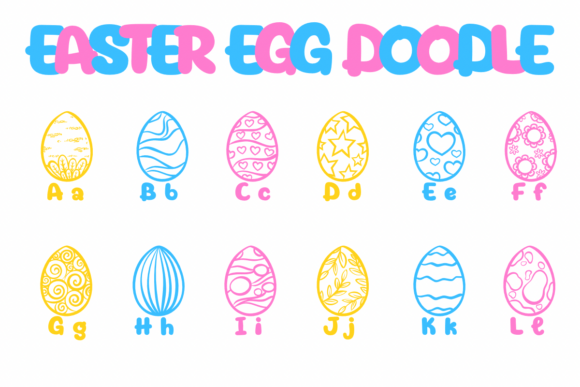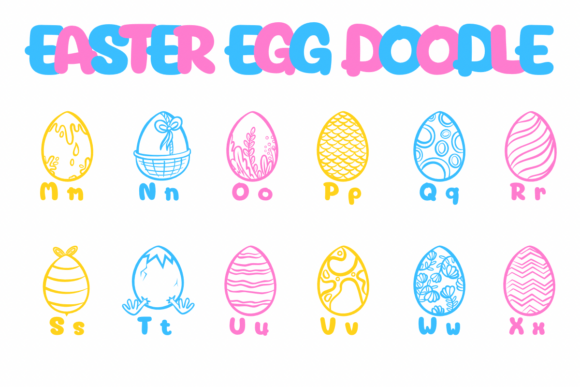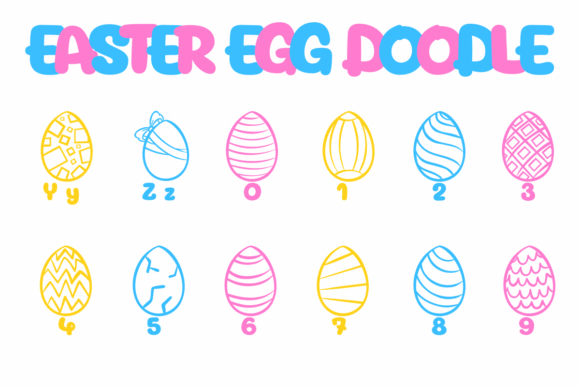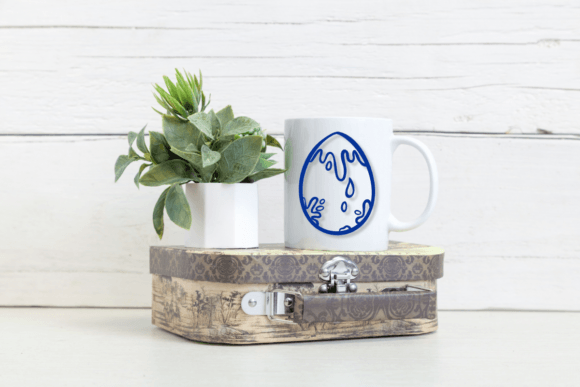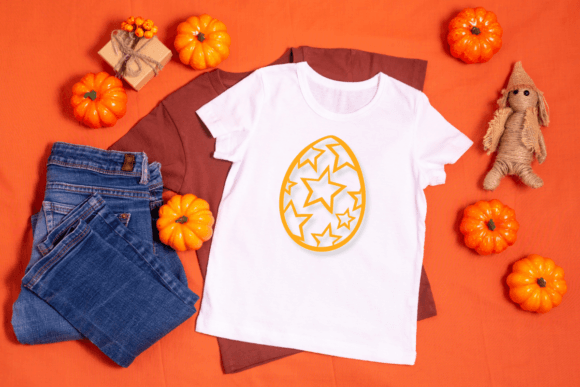
Get Ready to Crack Open Your Creativity with Easter Egg Doodle Font
Do you ever find yourself stuck in a creative rut, rummaging through your stash of art supplies, and wishing for a little inspiration to come along? I know I do! Sometimes, all it takes is a spark of whimsy to set our imaginations ablaze. For designers and crafty enthusiasts alike, Easter Egg Doodle Font is just the thing to crack open your creativity and unleash a world of possibilities.
This adorable dingbats font is specifically designed to add a touch of cutesy charm to your projects. Whether you’re working on wedding invitations, DIY crafts, or decorations, Easter Egg Doodle Font is the perfect accompaniment to bring your ideas to life. With its playful theme and versatile design, this font is an absolute treasure trove for designers looking to add a personal touch to their work.
- Unique Characteristics: Whimsical, playful, and fun design elements, featuring Easter egg-inspired doodles and patterns.
- Characters and Glyphs: Includes a wide range of characters, including uppercase and lowercase letters, numbers, and special characters, as well as decorative doodles and Easter egg-inspired symbols.
Easter Egg Doodle Font Review
Overall, I’m quite impressed with the Easter Egg Doodle Font. The design is whimsical and fun, perfect for creating Easter-themed designs, crafts, and digital projects. ✨ The font’s rounded edges, colorful eggs, and playful illustrations make it an ideal choice for projects targeting a younger audience.
The Easter Egg Doodle Font is highly customizable, allowing users to adjust the size, color, and style to fit their design needs. The font also includes a variety of Easter-themed doodles, making it easy to add an extra layer of fun to designs. ✨ The font’s high resolution and clear typography ensure that the design will look great even at larger sizes.
- ⚠️ The font may be too playful for more serious or professional projects.
- ⚠️ Some users may find the doodles distracting or overwhelming, especially when used in large quantities.
- ⚠️ The font may not be suitable for projects requiring a more minimalist or modern aesthetic.
Overall, the Easter Egg Doodle Font is a great choice for anyone looking to add a touch of whimsy and fun to their Easter-themed projects. While it may not be suitable for every design project, it’s definitely a great option for those targeting a younger audience or looking for a playful Easter-themed font.
Getting the Most Out of Easter Egg Doodle Font
To get the most out of Easter Egg Doodle Font, use it for:
Children’s party invitations and decorations
Spring-themed designs and graphics
Whimsical and playful designs
Easter Egg Doodle Font is perfect for:
Creating Easter-themed designs and graphics
Adding a playful touch to designs
Creating a whimsical and fun atmosphere